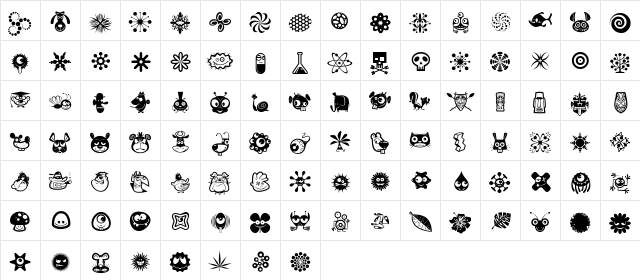
ChippiesByWassco Regular Free Font
ChippiesByWassco Regular
Design Context for ChippiesByWassco
ChippiesByWassco is a composed and adaptable typeface that performs quietly and consistently across a wide range of design contexts.